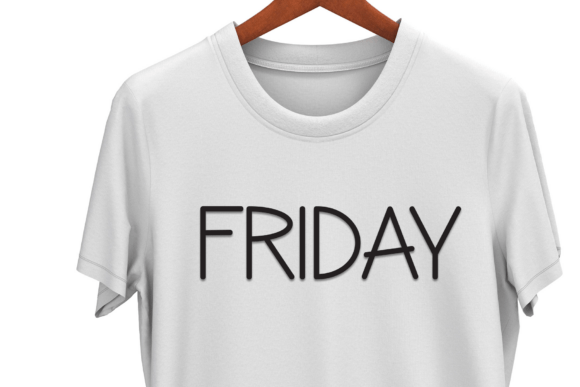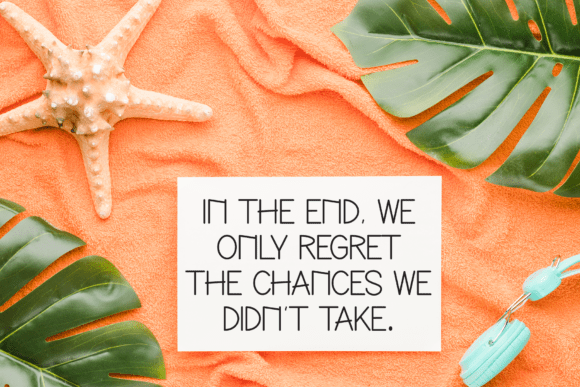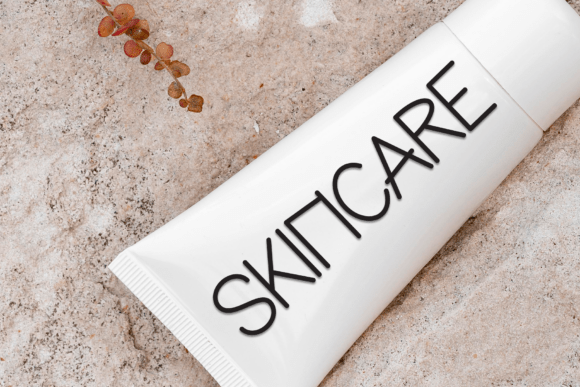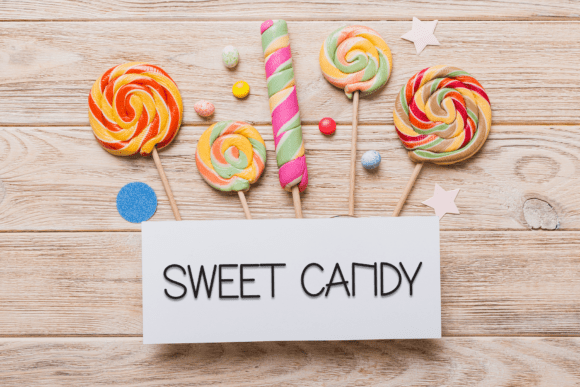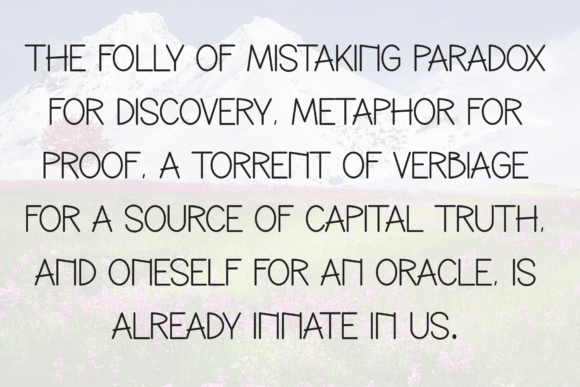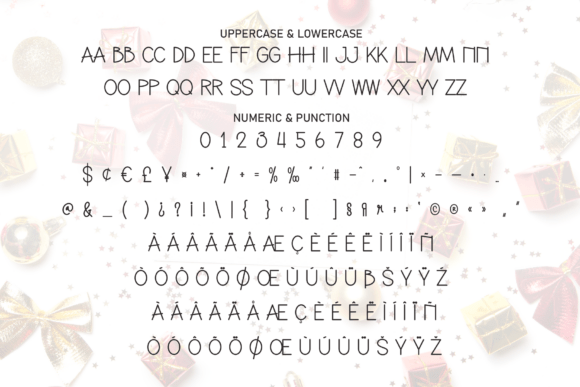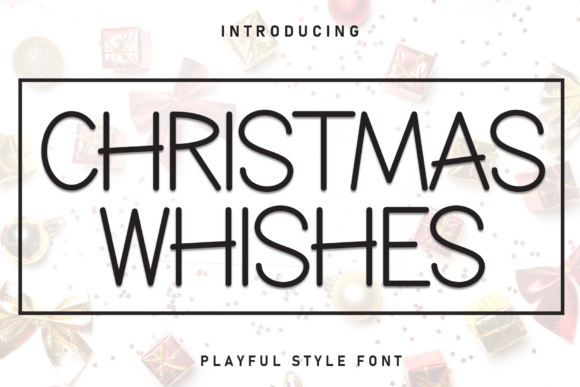
Introducing Christmas Whishes Font: The Perfect Blend of Simplicity and Warmth
As the holiday season approaches, designers and crafters are on the lookout for the perfect font to add a touch of festive charm to their projects. Look no further than Christmas Whishes Font, a casual and neat display font that combines simplicity with a friendly, approachable vibe. In this article, we’ll dive into the features and benefits of this beautiful font, and explore how it can elevate your designs and crafting projects.
A Modern Handwritten Typographic Style
Christmas Whishes Font boasts a modern handwritten typographic style that is both clean and polished. Featuring clean lines, balanced letterforms, and subtle rounded edges, this font captures the essence of modern handwritten typography with a refined finish. The subtle rounded edges add a touch of warmth and approachability, making it perfect for designs that require a friendly and inviting tone.
One of the standout features of Christmas Whishes Font is its versatility. Its crisp structure and versatile style make it ideal for a wide range of applications, including branding, headlines, packaging, and digital content. Whether you’re designing a festive holiday card, a product label, or a social media post, this font is sure to add a warm and inviting touch to your design.
Christmas Whishes Font is a dream come true for designers and crafters who want to add a personal touch to their projects. With its clear and legible letterforms, this font is perfect for creating beautiful and effective designs that communicate your message with clarity and charm. Whether you’re a professional designer or a crafty DIY enthusiast, this font is sure to become a staple in your design toolkit.
Key Features of Christmas Whishes Font
- Clean lines and balanced letterforms: Giving the font a modern and polished look
- Subtle rounded edges: Adding a touch of warmth and approachability
- Versatile style: Suitable for a wide range of applications, including branding, headlines, packaging, and digital content
- Clear and legible letterforms: Perfect for communicating your message with clarity and charm
Tips for Using Christmas Whishes Font
To get the most out of Christmas Whishes Font, here are a few tips to keep in mind:
- Use it for headlines and titles: Christmas Whishes Font is perfect for grabbing attention and adding a touch of festive charm to your designs
- Pair it with complementary fonts: Experiment with pairing Christmas Whishes Font with other fonts to create a unique and visually appealing design
- Experiment with colors and textures: Add an extra layer of depth and interest to your design by experimenting with different colors and textures